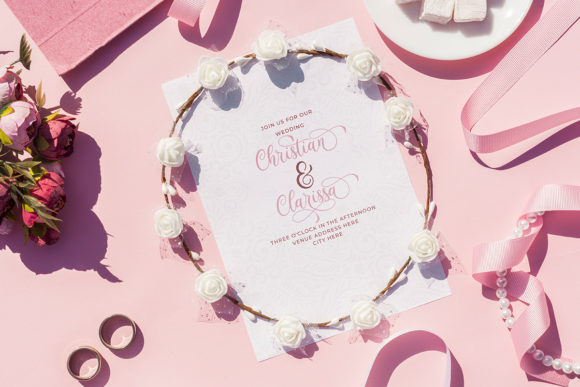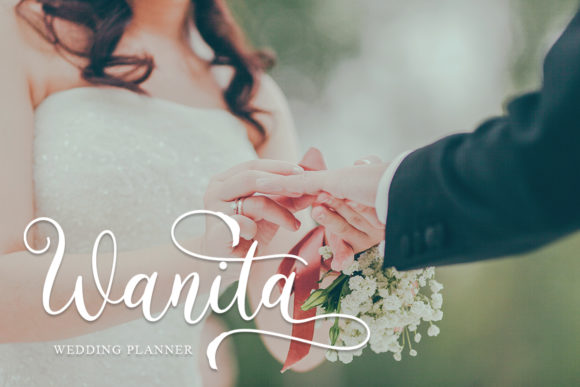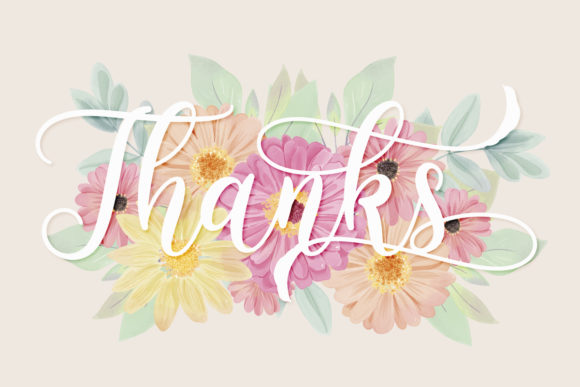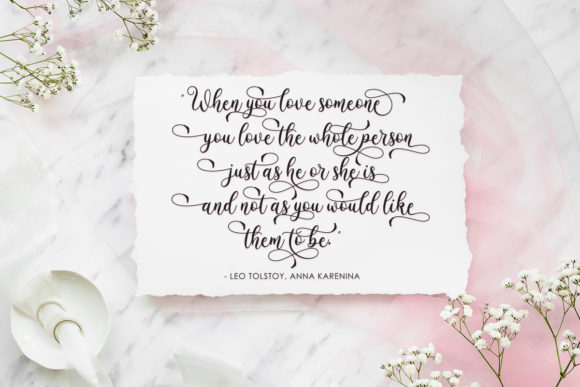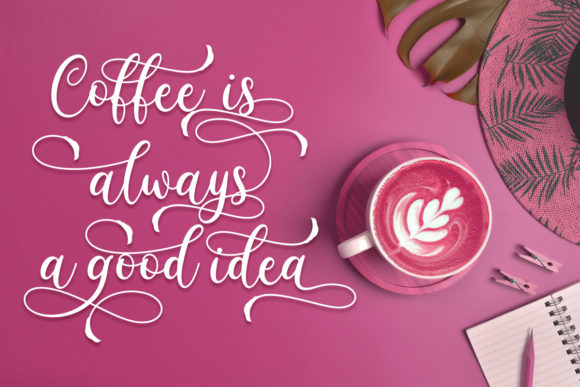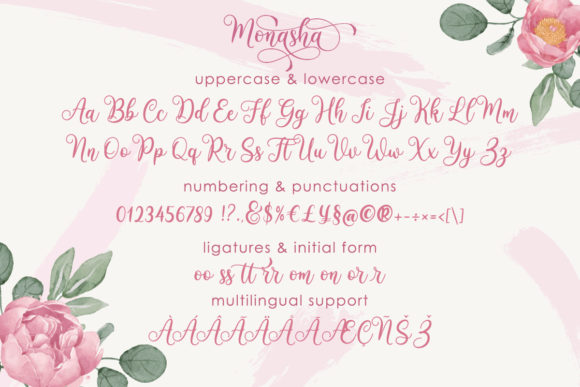
Monasha: Embrace the Elegance and Flow of a Handwritten Font
Introducing Monasha, a font that exudes elegance and grace in every stroke. With its flowing handwritten style, this font is a stunning choice for a wide range of projects. Whether it’s sophisticated wedding invitations, artistic quotes, captivating logos, or any other design that needs a touch of elegance—Monasha is the perfect companion, ready to elevate your work with its varying baseline, smooth lines, gorgeous glyphs, and stunning alternates.
The allure of Monasha lies in its elegant and flowing appearance. Each letter dances with grace, creating a mesmerizing rhythm that captures the essence of sophistication.
Expressing sentiments becomes an art form with Monasha. Its flowing nature breathes life into your words, making them resonate with emotions that leave a lasting impression.
Gorgeous designs come to life with Monasha’s versatility. Whether you’re creating branded materials, designing social media graphics, or crafting stunning prints, this font adds a sense of elegance that captivates the eye.
Monasha maintains its classy calligraphic influences while embracing a contemporary and fresh feel, making it a font that stands the test of time and aligns perfectly with modern design trends.
In conclusion, Monasha is more than just a font; it’s an elegant and flowing masterpiece. Embrace its graceful allure, and let it become the muse for your most cherished projects. Whether you’re celebrating love, inspiring creativity, or building a captivating brand identity, Monasha will be your trusted companion, adding a touch of sophistication and charm. Allow this font to unlock the full potential of your creativity, and watch as your projects reach new heights with the elegance and flow of Monasha. Fall in love with its timeless beauty, and let it be the guiding light that leads you to create remarkable designs that leave a lasting impact on all who behold them.